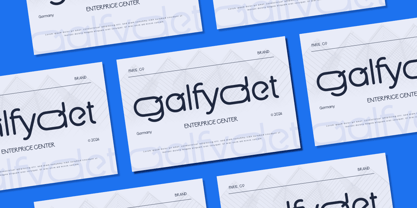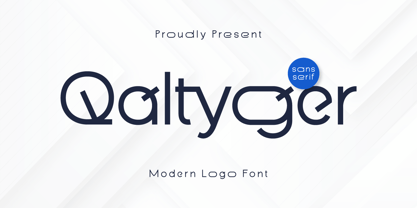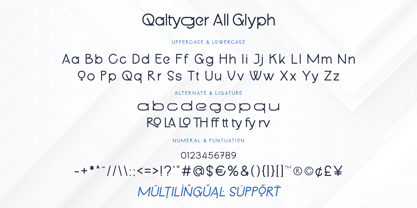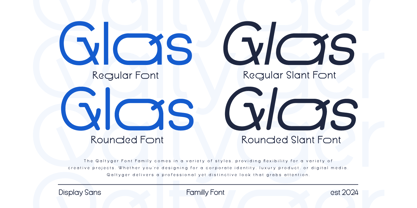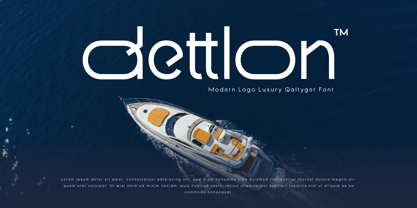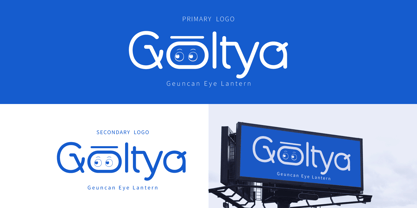
Qaltyger
by Trabas Kriya
The Qaltyger Font Family was designed by Murozakul Akhsan and published by Trabas Kriya. Qaltyger contains 4 styles and family package options. More about this family
Qaltyger - Modern Logo Font is a sleek and stylish typeface designed specifically for modern logo and branding designs. With its clean lines and professional look, Qaltyger adds a touch of elegance and contemporary style to your projects. Ideal for luxury brands, corporate identities, and minimalist designs, this font ensures your work stands out with sophistication.
Designers: Murozakul Akhsan
Foundry: Trabas Kriya